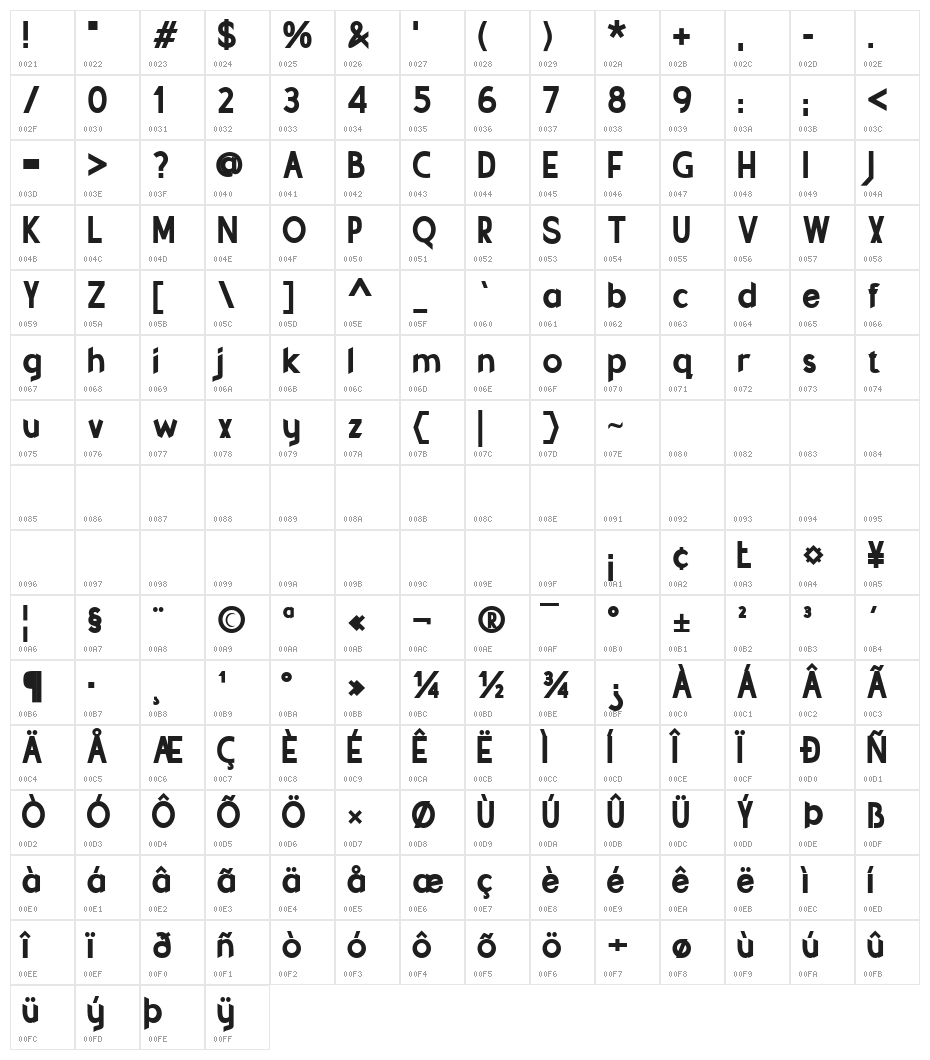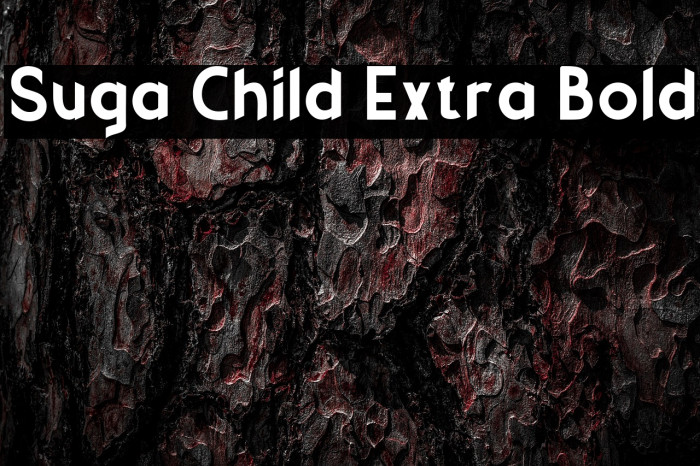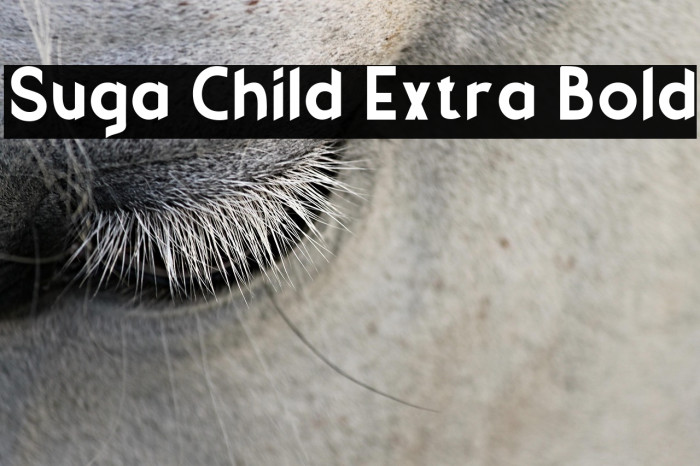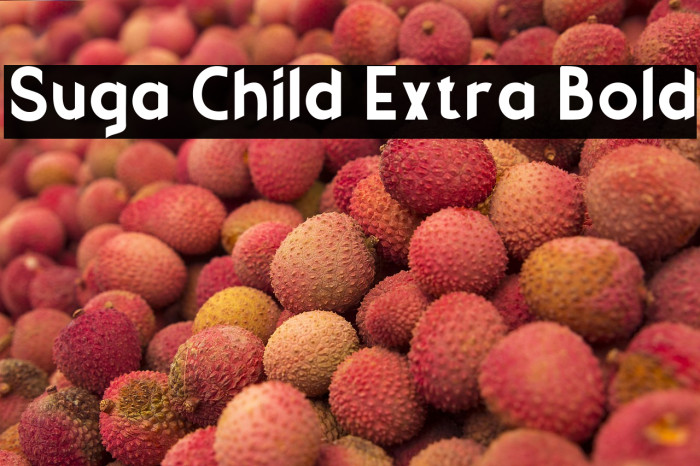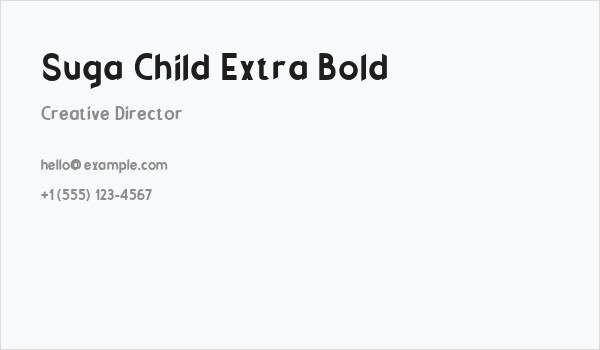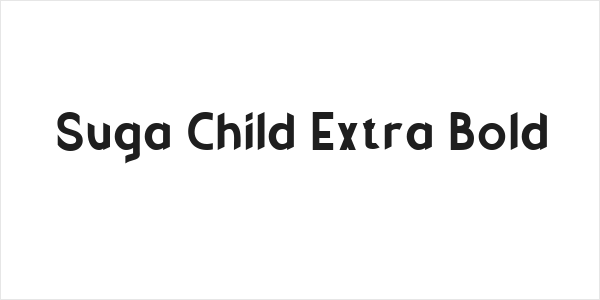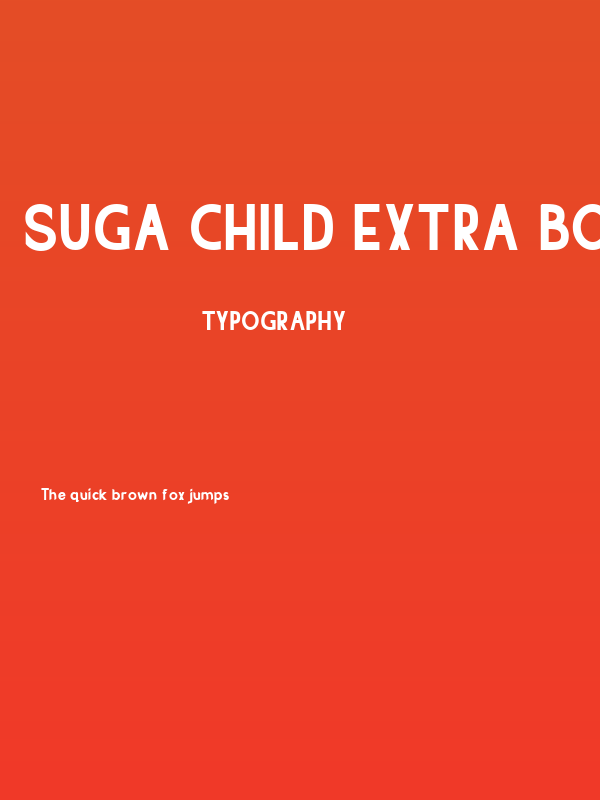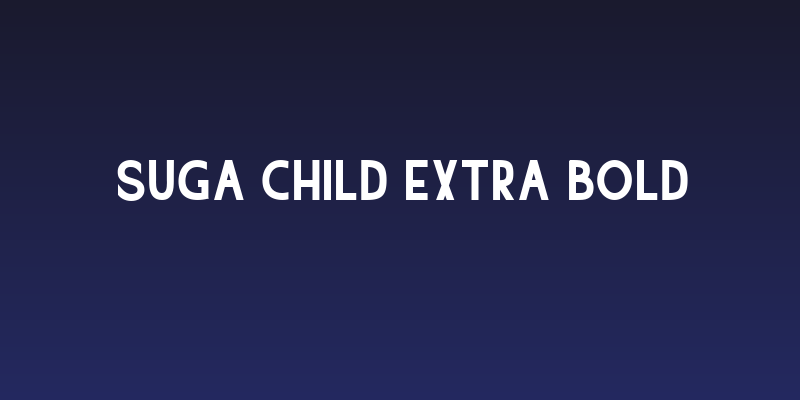
Suga Child Extra Bold Font
Suga Child Extra Bold Description
This font features a bold and playful design with a strong presence. The uppercase letters are robust and slightly angular, giving a modern and assertive look. The lowercase letters maintain a consistent weight, providing a harmonious balance between the characters. The numerals are clear and straightforward, ensuring readability. Special characters are designed with the same boldness, making them stand out effectively. The overall style is contemporary, with a hint of playfulness, making it suitable for eye-catching designs.